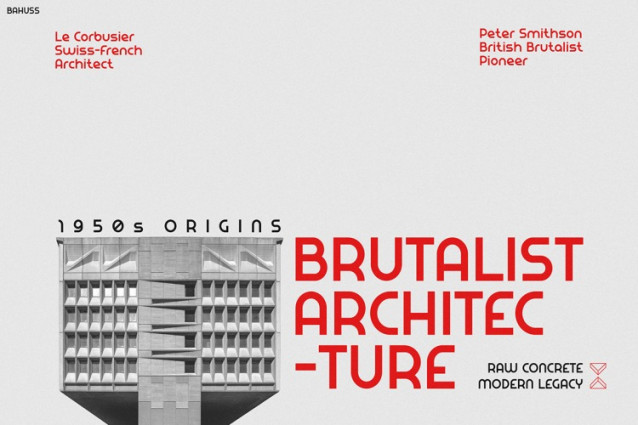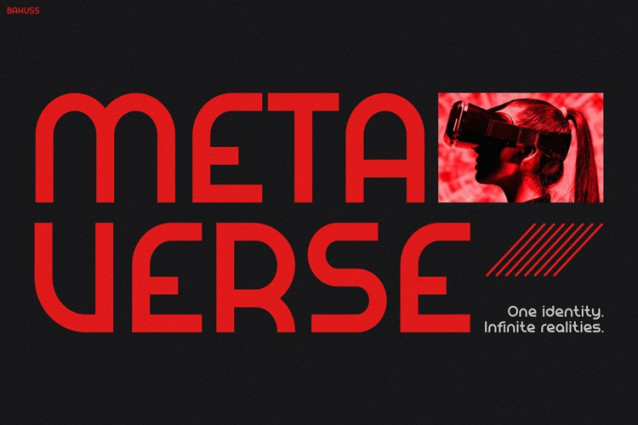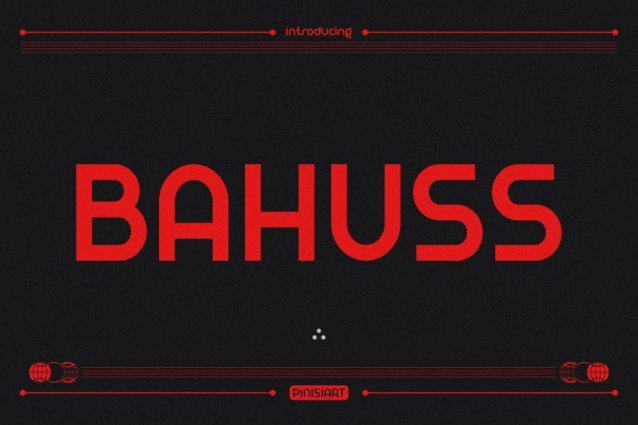
Bahuss Font
Bahuss Font is the perfect choice for creators who want to make bold statements in a sleek, futuristic style. From the first glance, this font commands attention. Its geometric forms and sharp modular design create a visual rhythm that instantly stands out. Not only does it look bold and confident, but it also reflects a strong sense of structure—perfect for digital spaces where clarity and creativity must go hand in hand.
What sets BAHUSS apart is its ability to blend brutalist architecture influences with a digital-age aesthetic. While most fonts focus on simplicity or softness, BAHUSS chooses intensity. Each character features a precise mix of angularity and curve, making it feel both engineered and expressive. As a result, your text doesn’t just appear on a screen—it performs. Whether you’re designing for Instagram, branding projects, posters, or event campaigns, BAHUSS helps you deliver messages with power and style.
Moreover, BAHUSS is more than just visually appealing. It also provides practical advantages. The font remains legible across various screen sizes, thanks to its clear spacing and well-balanced forms. Therefore, whether you’re working on mobile-first content or widescreen layouts, BAHUSS will remain sharp and readable.